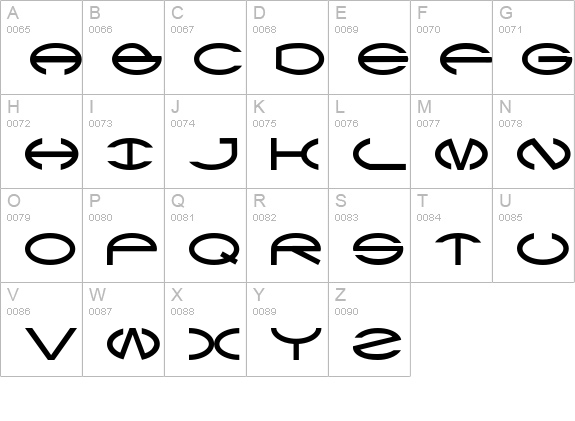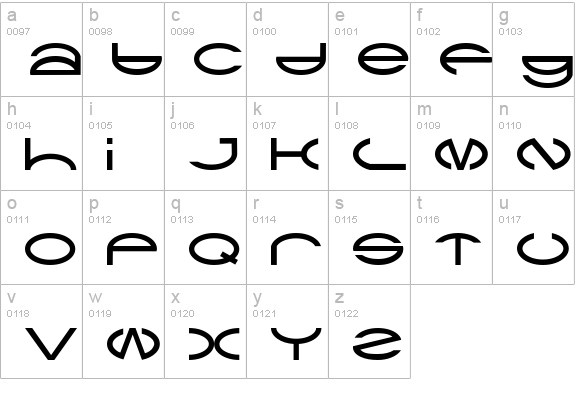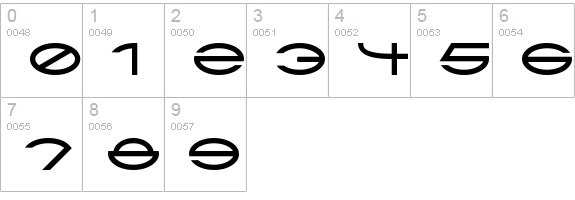
CType Font Details
CType font is a stylish and modern typeface that exudes elegance and sophistication. Its sleek lines and sharp edges make it perfect for a wide range of design projects, from branding to packaging to web design. The versatility of CType font allows it to be easily incorporated into any creative concept, adding a touch of class and professionalism. What's even better is that CType font is available for free download at FontsMarket.com. This means that you can access this high-quality font without having to break the bank. Whether you're a seasoned designer looking to add a new font to your collection or a beginner wanting to experiment with typography, CType font is the ideal choice. Don't miss out on the opportunity to enhance your projects with this stunning font that is just a click away at FontsMarket.com.